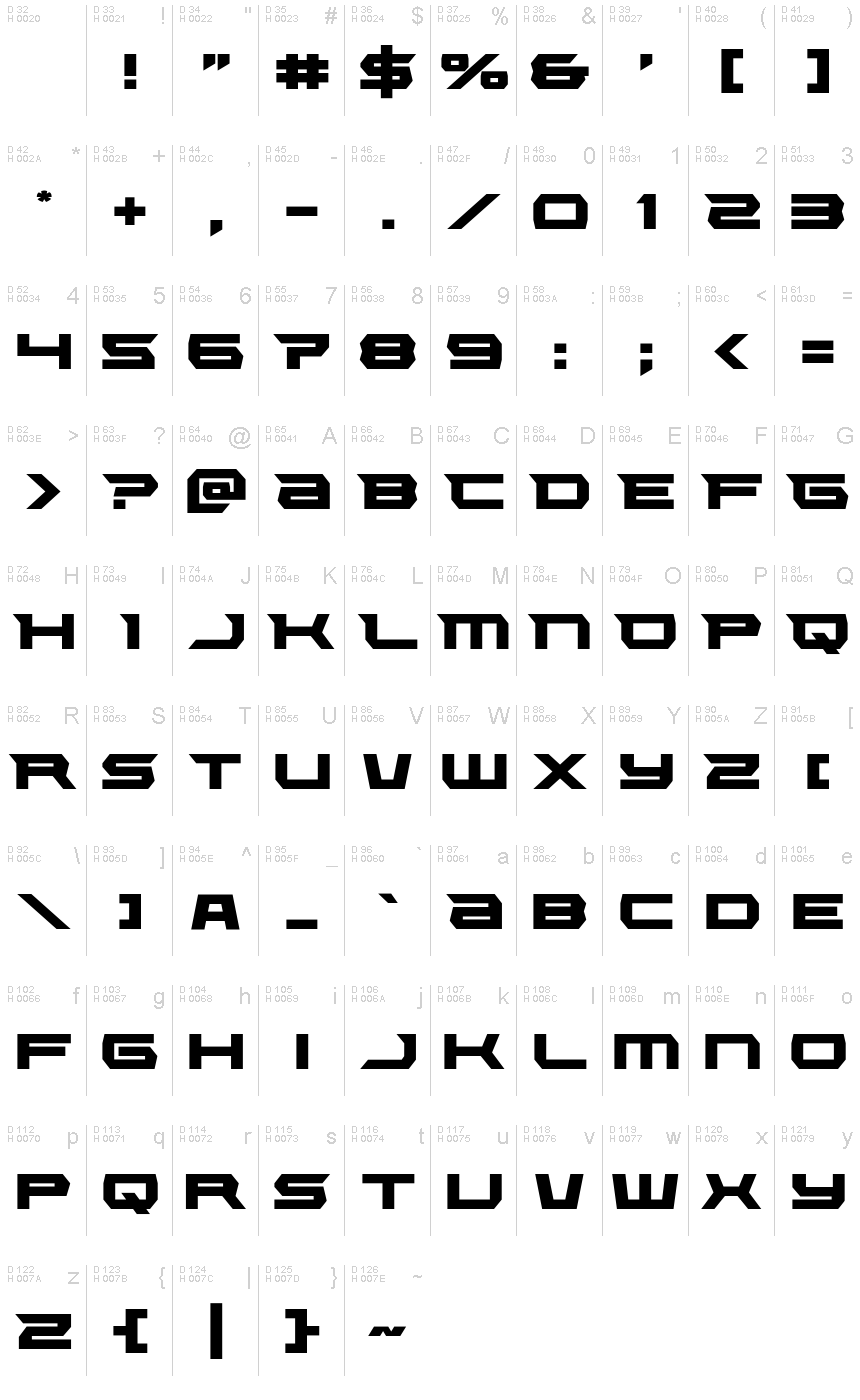
Lethal Force
Lethal Force by Iconian Fonts is the epitome of futuristic design. This display typeface captures attention with its bold, expanded characters that speak volumes in both style and presence. The sharp, angular form of each letter exudes strength and modernity, making it an ideal choice for projects that demand a commanding visual impact.
Perfect for tech-related branding, sci-fi covers, video game titles, and other creative ventures where a contemporary edge is essential, Lethal Force stands out in any context. Its powerful aesthetic ensures your message is not just read but felt, embodying the cutting-edge spirit of the future.